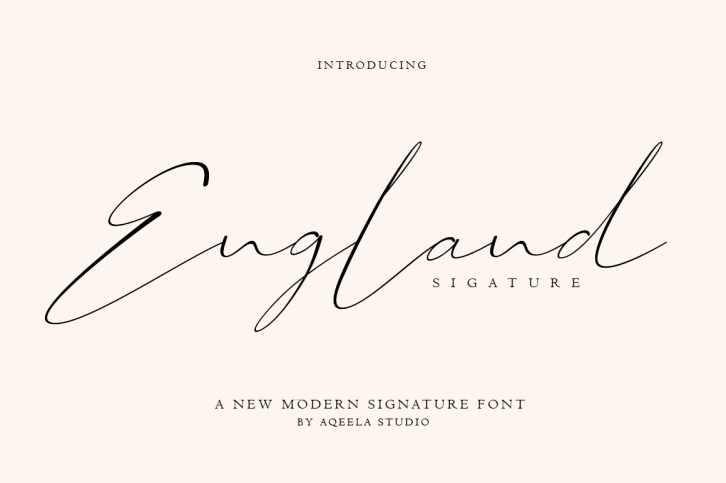
England is a beautiful signature font. It has a fresh, modern and natural handwritten style that will add a distinctive touch to your perfect designs.
This font is perfect for branding, as it complements it with several alternatives that allow you to make it a feminine and masculine logo, as well as a few markings to add rigidity to the signature, for a bond that accentuates the natural feel of the handwriting.